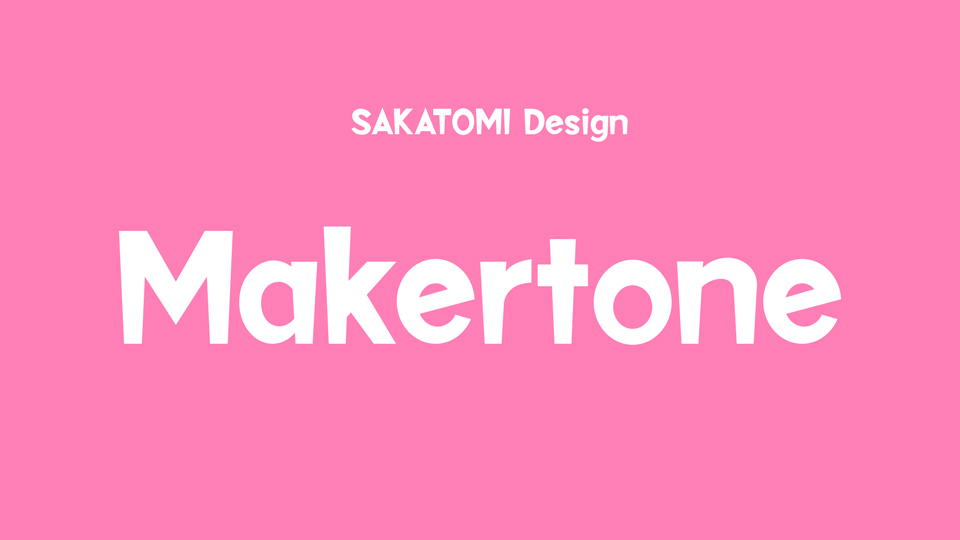
Download Makertone font, a fun and friendly typeface with sloping terminal geometric shapes, giving it a playful feeling. Makertone font works well for packaging, children’s books, or wherever you need an informal text without being too cartoony.
Designer: SAKATOMI Design